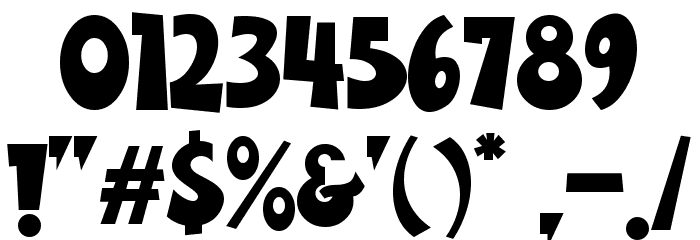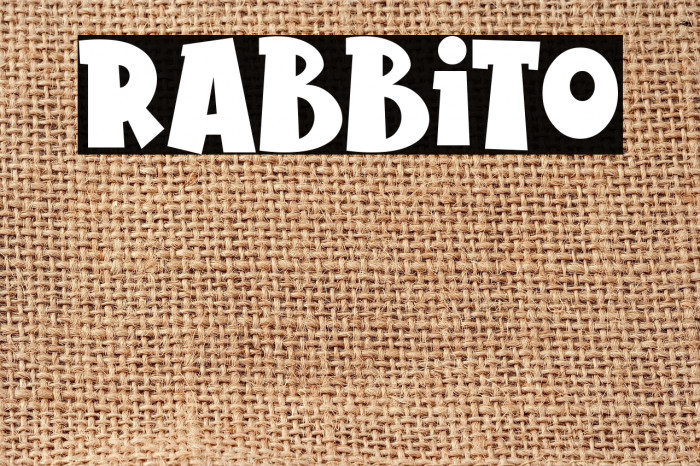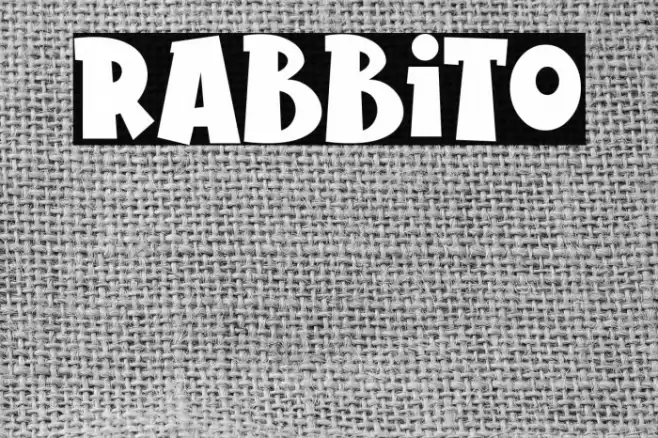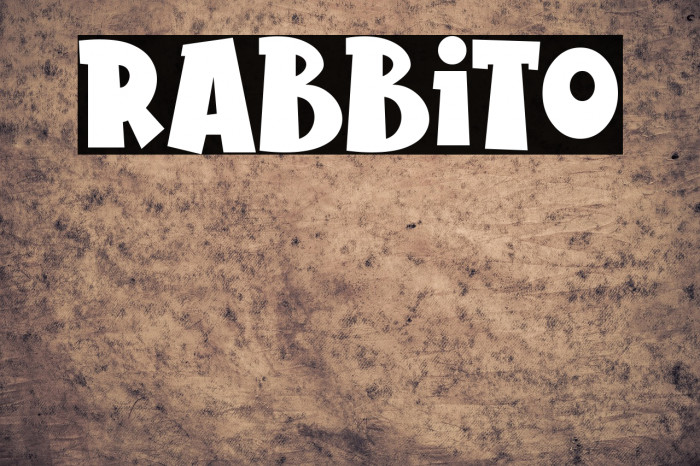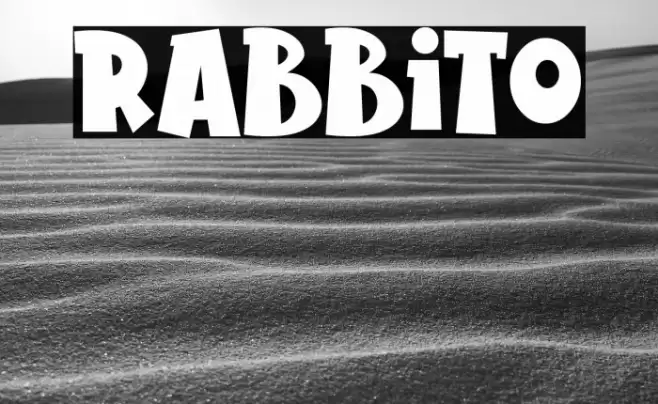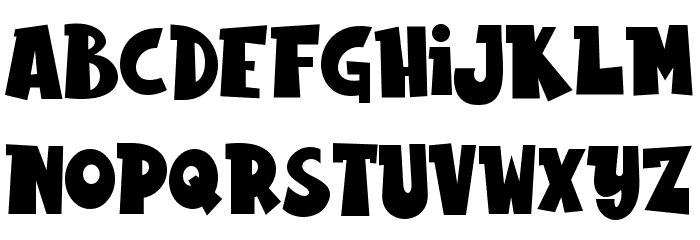
Rabbito Font
Rabbito Description
This font features a bold and playful style with exaggerated, rounded shapes that give it a whimsical and fun appearance. The characters are thick and slightly irregular, adding a sense of movement and energy. The uppercase letters are particularly prominent, with a strong presence that makes them stand out. The lowercase letters maintain the same playful aesthetic, ensuring consistency across the typeface. Numbers and special characters are designed to match the overall style, making this font versatile for various uses. Its unique design makes it suitable for projects that require a lively and engaging look.